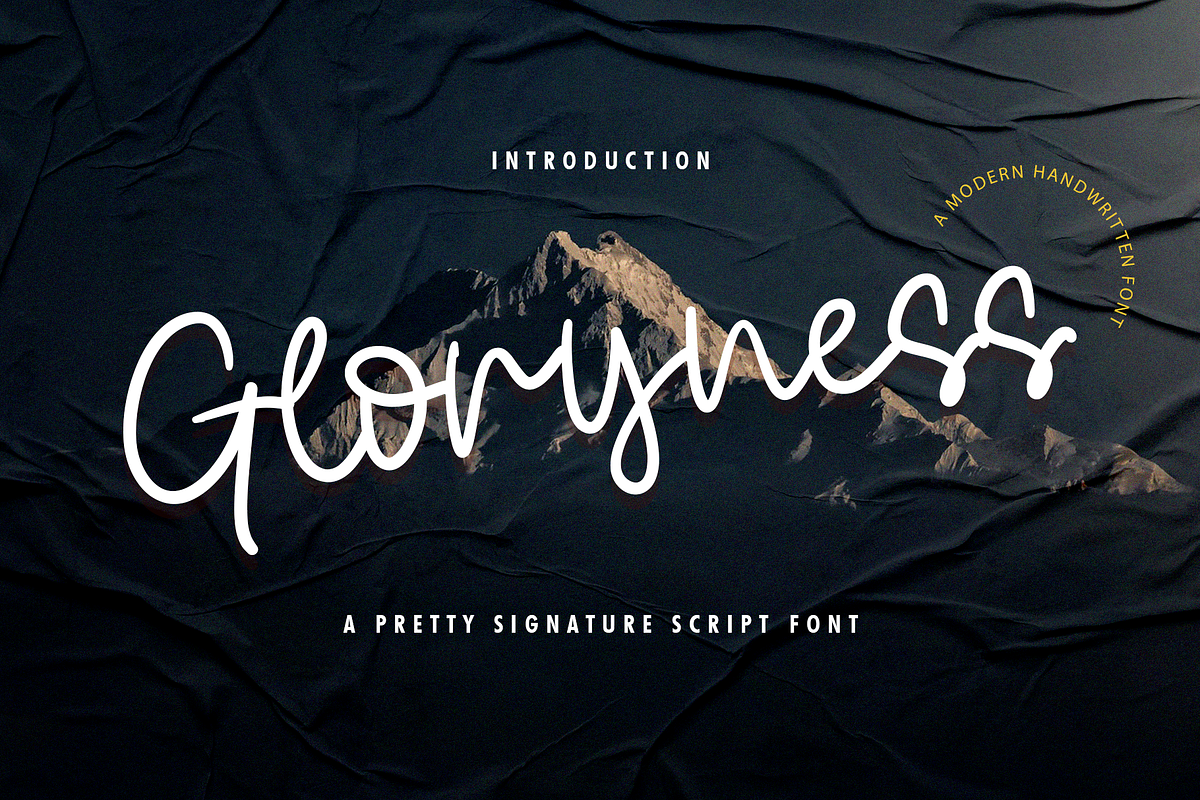
Gloryness - A Modern Script Font Free Download
Gloryness - A Modern Script Font Free Download is a stunning script font that combines elegance with a modern touch. Its fluid curves and stylish design make it the perfect choice for a wide range of creative projects. Whether you're working on invitations, branding, or any design that needs a personal and sophisticated flair, Gloryness offers a unique solution that enhances your work with its contemporary script style.
Gloryness - A Modern Script Font Free Download features smooth, graceful letterforms and is versatile enough to suit both formal and casual projects. Its artistic and flowing style ensures that your design stands out, making it ideal for logos, websites, and print materials that demand attention and a professional touch.